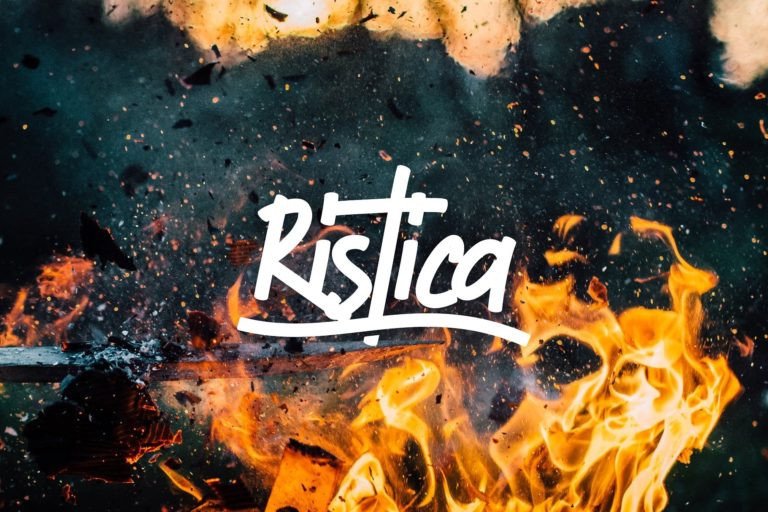
Ristica Handwriting Font
Ristica Font is a font with my own handwriting style that I can use everyday. Standard English character, Number, & Punctuation. I hope you enjoy with this fonts & can help your project. Thanks so much for purchase.